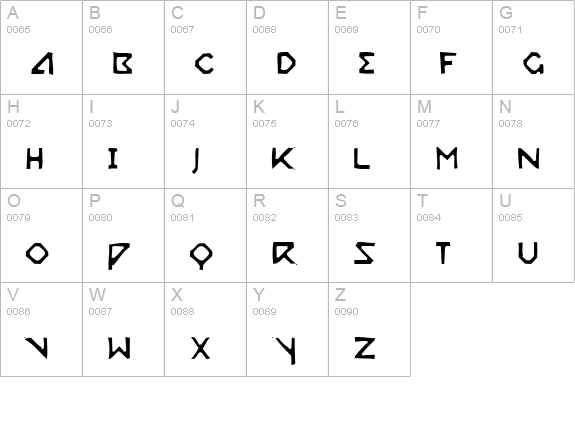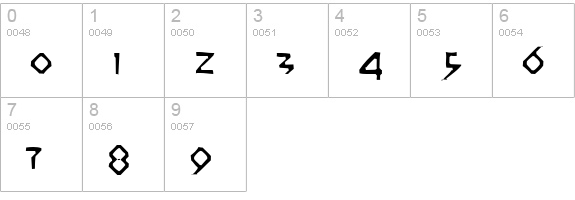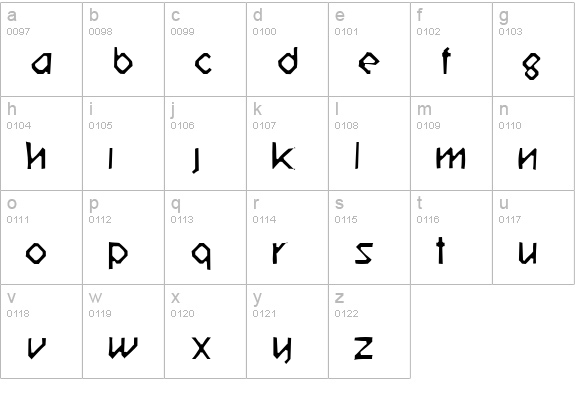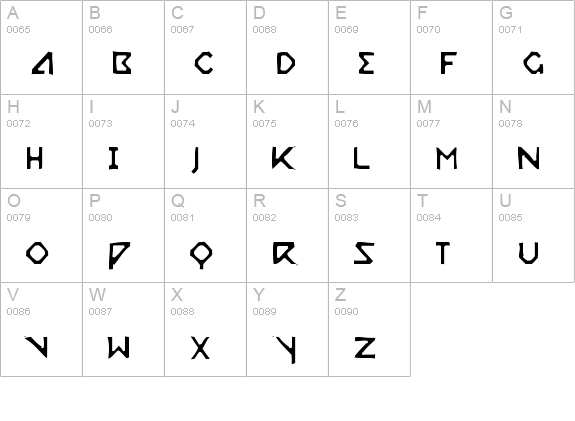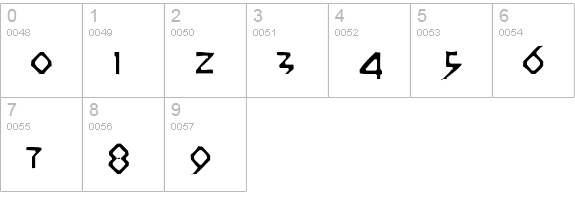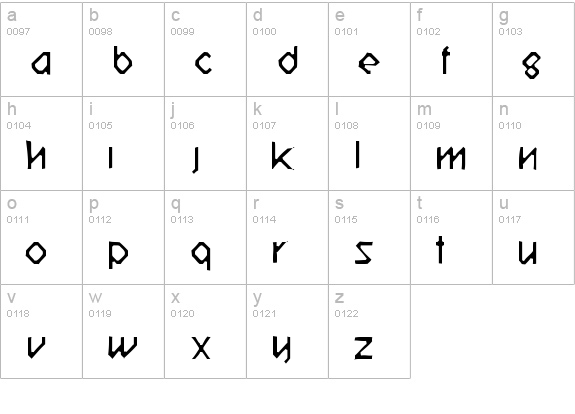
Relish Gargler Gaunt Font Details
Relish Gargler Gaunt font is a captivating and versatile typeface that exudes a sense of mystery and elegance. With its intricate details and unique shapes, this font is perfect for adding a touch of sophistication to any design project. The delicate curves and sharp angles of Relish Gargler Gaunt create a striking visual impact that is sure to capture the attention of your audience. What's even more exciting is that Relish Gargler Gaunt font is available for free download at FontsMarket.com. This means you can easily access and use this stunning font in your creative work without any cost involved. So why wait? Add a touch of magic and allure to your designs with Relish Gargler Gaunt font today!